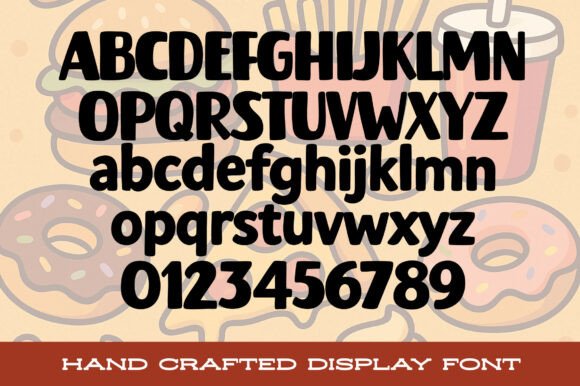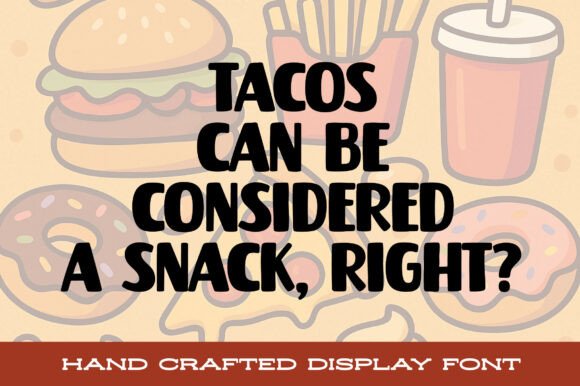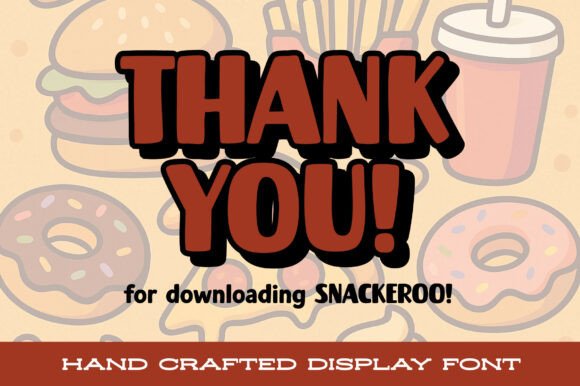
Introduction to Snackeroo Font
Snackeroo is a fun, chunky, hand-crafted display font designed with a delicious, playful energy perfect for food branding, cheerful advertising, and casual design.
This versatile typeface features thick, friendly letterforms with a slightly rounded, homemade feel, making it instantly approachable and appetizing The Snackeroo font captures a joyful, carefree vibe, making it ideal for restaurant signage, menu boards, food packaging labels, or social media posts promoting tasty treats.
Key Features of Snackeroo Font